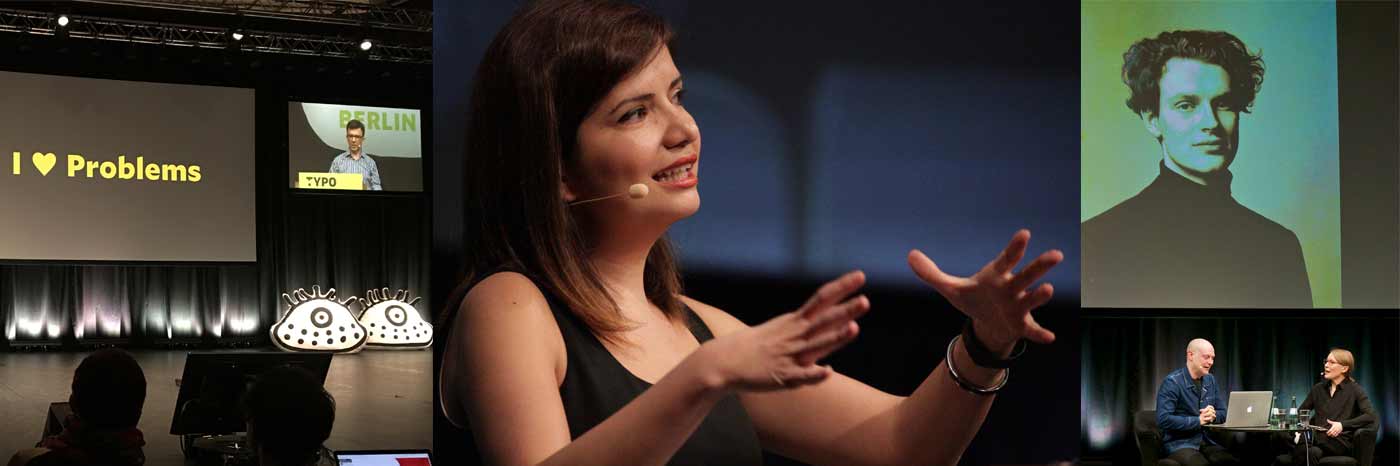
The Value of Curiosity: TYPO Berlin 2016 in Review
Design conferences are everywhere. Our profession as type designers, typographers and graphic designers is moving fast and we are lucky to have these events where we can get together, learn from each other, gawk at some amazing portfolios and get inspired by the greats.
Perhaps a poignant talk with Jonathan Barnbrook in eggshell-treading-interview format, where intersections between politics and design come to light, together with gloriously great, and now absent, hair?
Or a warmly technical talk about the mechanics of reading and optical sizes with Tobias Frere-Jones, announcing Mallory MicroPlus, which addresses the challenges of small text and screen text simultaneously?
What about Nadine Chahine explaining how the way we read affects our daily life?